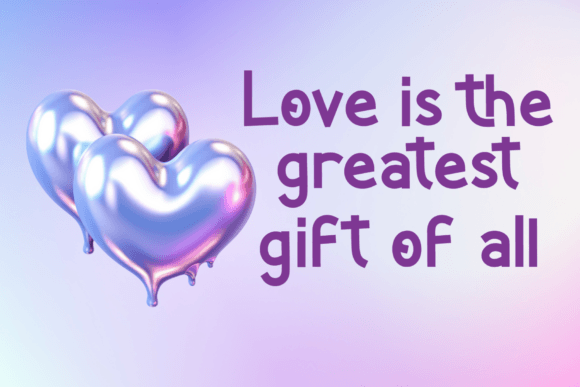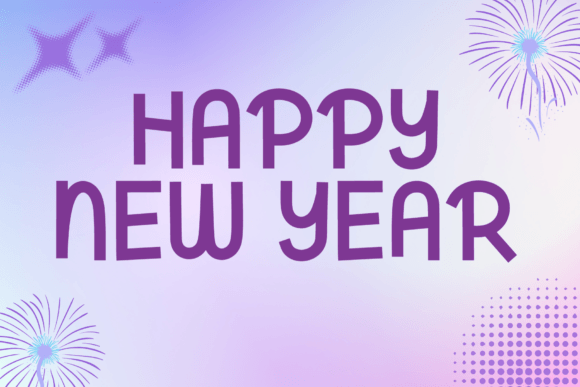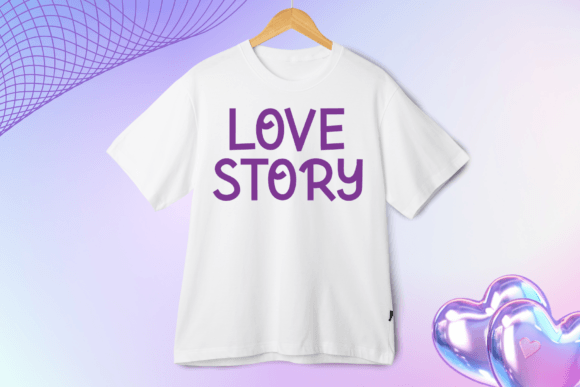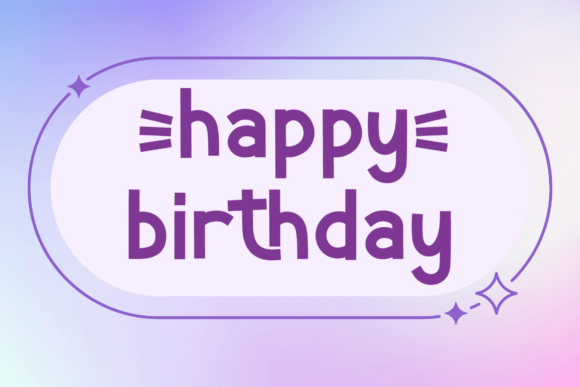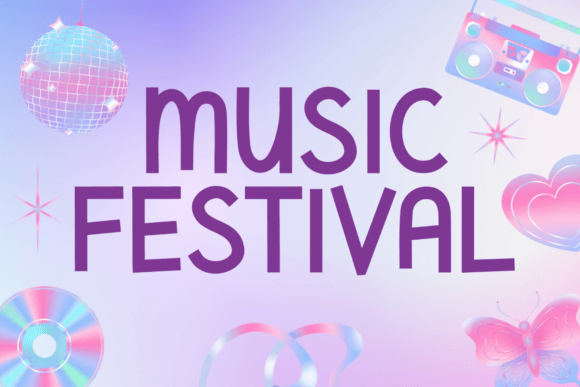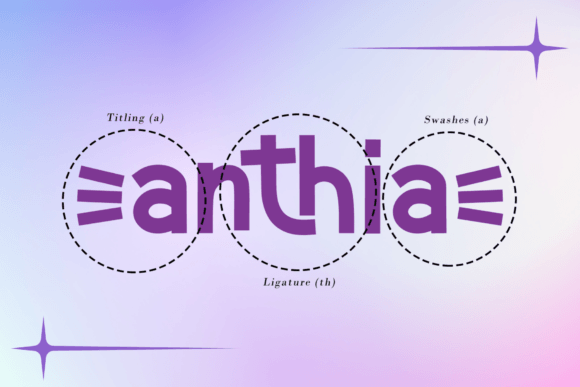
Introducing Amtha Font: The Ultimate Choice for Bold, Fun, and Creative Designs
Are you tired of using the same old fonts for your designs? Look no further! Say hello to Amtha, the font that’s about to take your creations to the next level. This versatile typeface is perfect for designers and crafters who want to add a touch of fun and personality to their work. From social media graphics to festive New Year greetings and stylish t-shirt designs, Amtha fits perfectly.
The Perfect Blend of Boldness and Charm
Amtha font boasts bold strokes and charming imperfections that give it a warm, handcrafted feel. Its unique design brings life and energy to every project, making it the perfect choice for designers who want to create engaging and fun designs. Whether you’re working on a children’s book, a party invitation, or a social media post, Amtha is sure to make your design stand out.
One of the best things about Amtha font is its versatility. It can be used for a wide range of design projects, from playful and fun to bold and edgy. Its flexibility makes it an excellent choice for designers who want to experiment with different styles and themes. Whether you’re creating a logo, a brochure, or a website, Amtha is sure to adapt to your design needs.
Imperfectly Perfect
Amtha font’s charming imperfections are one of its most distinctive features. These imperfections give the font a human touch, making it look like it was handcrafted with love and care. This unique characteristic makes Amtha perfect for designers who want to create designs that are warm, friendly, and approachable.
Perfect for Social Media Graphics
In today’s digital age, social media graphics are an essential part of any designer’s toolkit. Amtha font is perfect for creating engaging social media graphics that are sure to grab the attention of your audience. Its bold and playful design makes it ideal for creating eye-catching posts, stories, and ads that will help you stand out in a crowded online space.
Festive and Fun: Amtha for New Year Greetings
The New Year is a time for celebration and joy, and Amtha font is the perfect choice for creating festive and fun New Year greetings. Its bold and playful design makes it ideal for creating eye-catching cards, posters, and social media posts that will help you wish your friends and family a happy New Year.
Stylish T-Shirt Designs with Amtha
Amtha font is also perfect for creating stylish t-shirt designs that are sure to turn heads. Its bold and playful design makes it ideal for creating fun and quirky designs that will appeal to anyone who loves fashion and humor. Whether you’re designing for a client or creating your own merchandise, Amtha is sure to help you create a design that’s both stylish and fun.
Get Creative with Amtha
Amtha font is more than just a typeface – it’s a creative tool that can help you bring your ideas to life. Its versatility, charm, and playfulness make it the perfect choice for designers and crafters who want to add a touch of fun and personality to their work. So why wait? Let your imagination run wild with Amtha, and see where your creativity takes you!
In conclusion, Amtha font is a versatile and engaging typeface that’s perfect for designers and crafters who want to create bold, fun, and creative designs. Its unique blend of boldness and charm, combined with its versatility and playfulness, make it an excellent choice for a wide range of design projects. Whether you’re working on social media graphics, New Year greetings, or stylish t-shirt designs, Amtha is sure to help you create designs that are both fun and engaging.